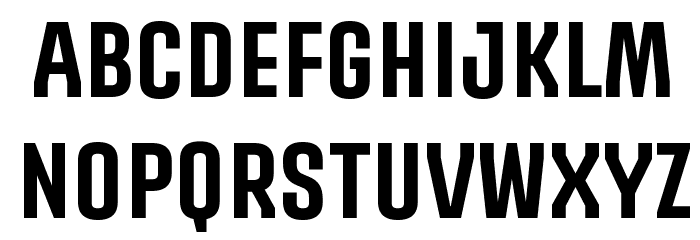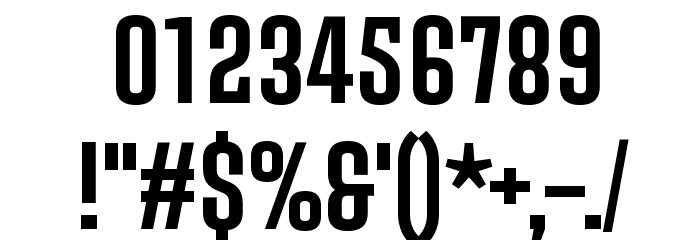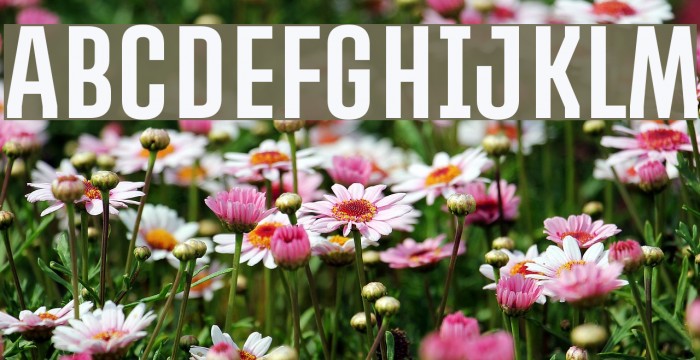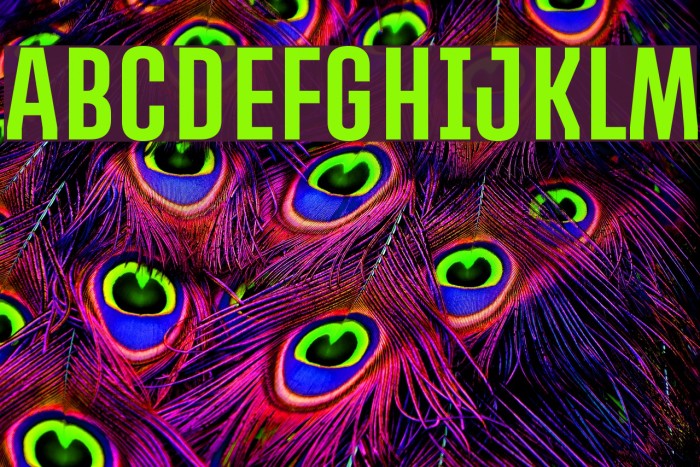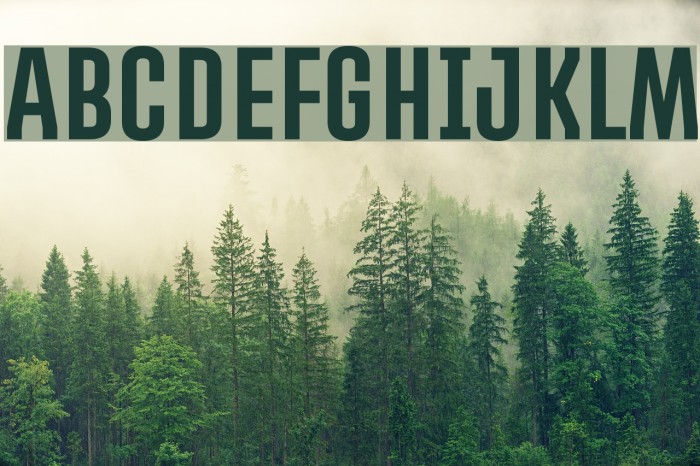
PROMOVA Font
This font features a bold and assertive style with strong, clean lines and a modern aesthetic. The characters are uniformly designed with a consistent stroke width, giving it a robust and impactful appearance. The uppercase and lowercase letters maintain a cohesive look, while the numerals and special characters are crafted to match the overall design. The font's geometric structure and slightly condensed form make it suitable for attention-grabbing headlines and titles. Its simplicity and clarity ensure readability, making it versatile for various design applications.
A bold, modern font with clean lines and a slightly condensed form.